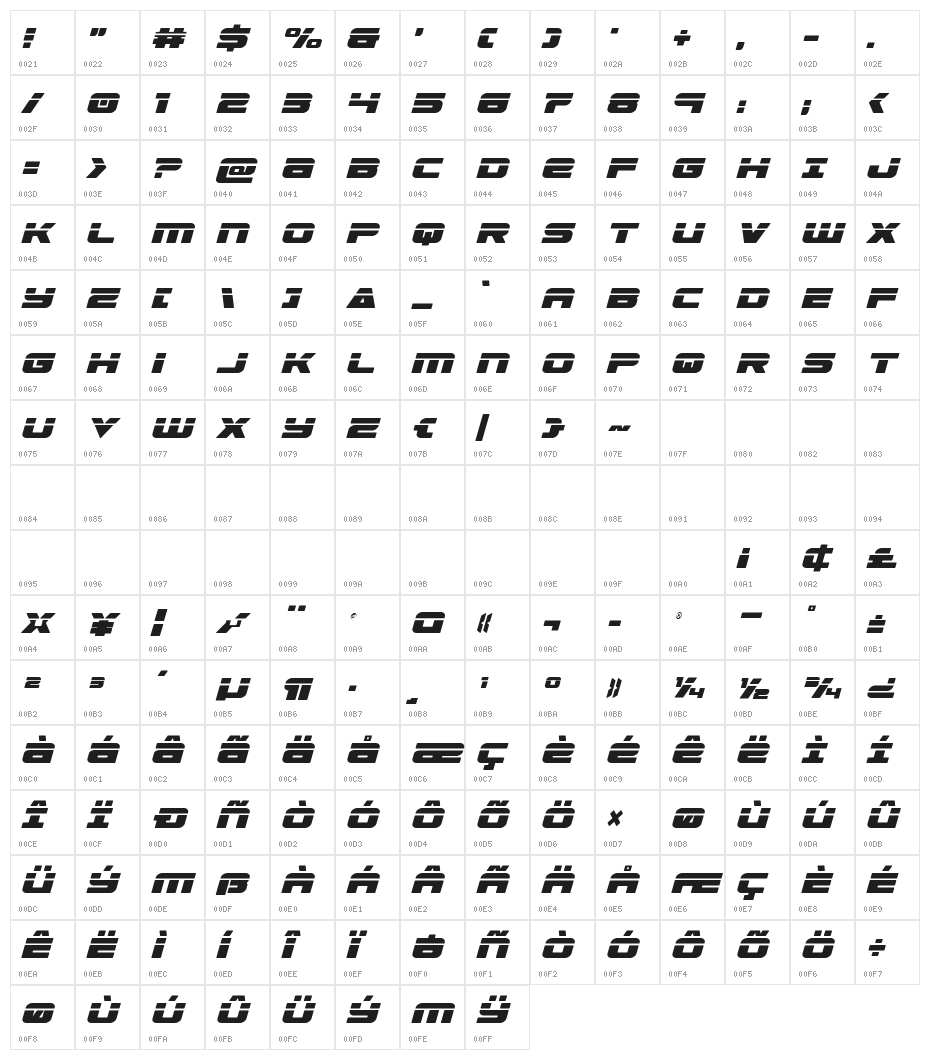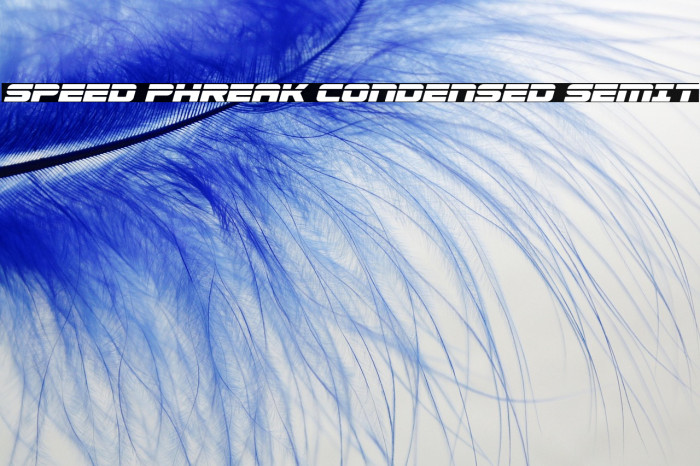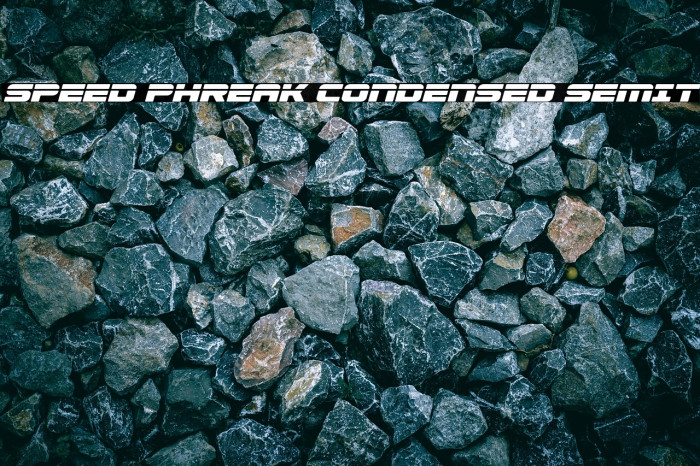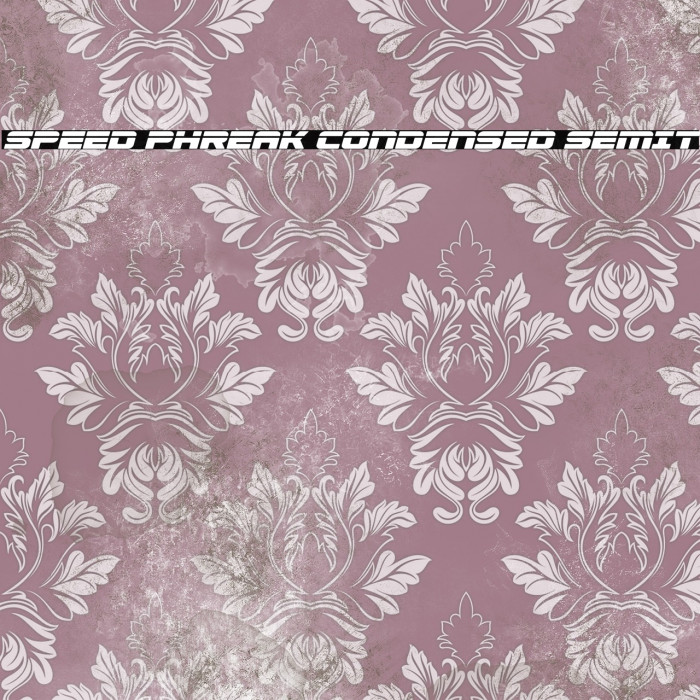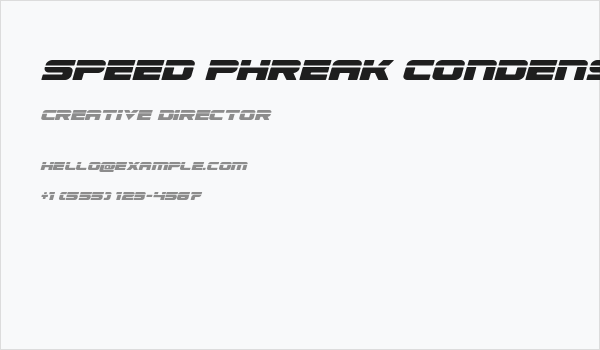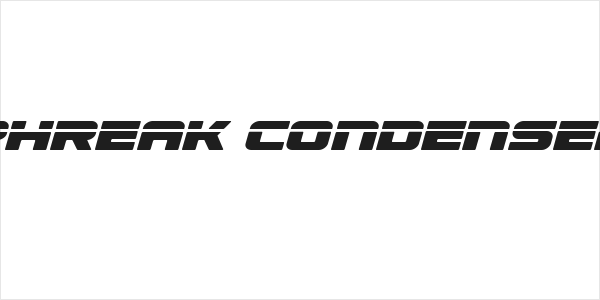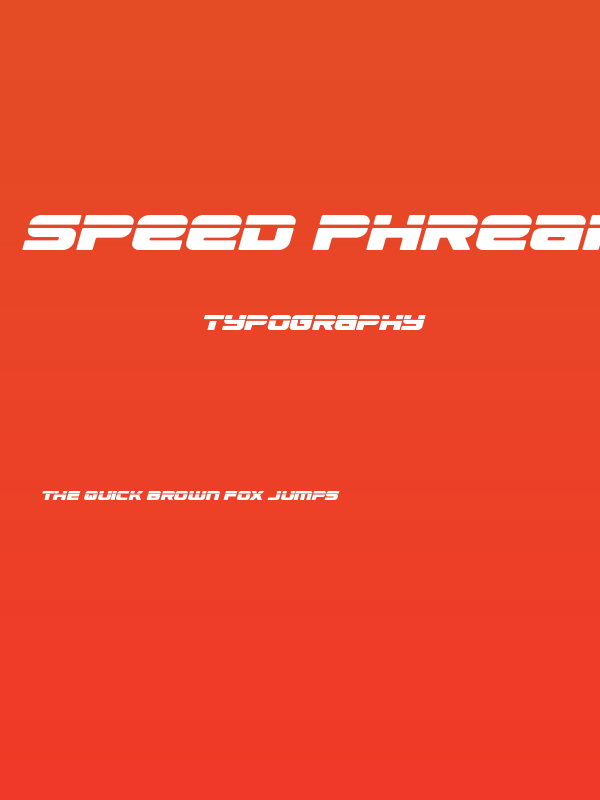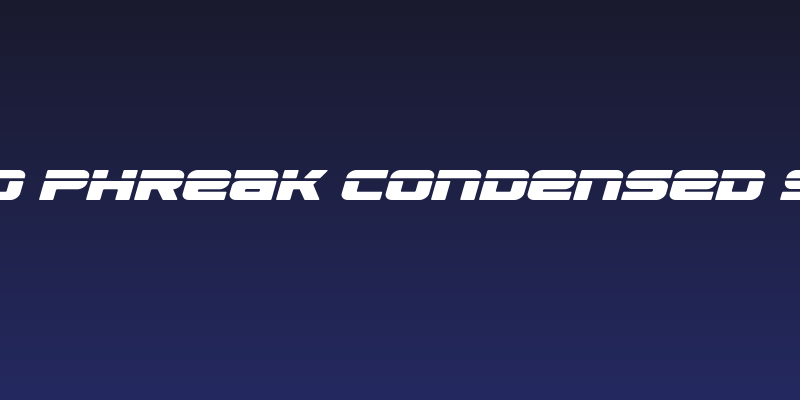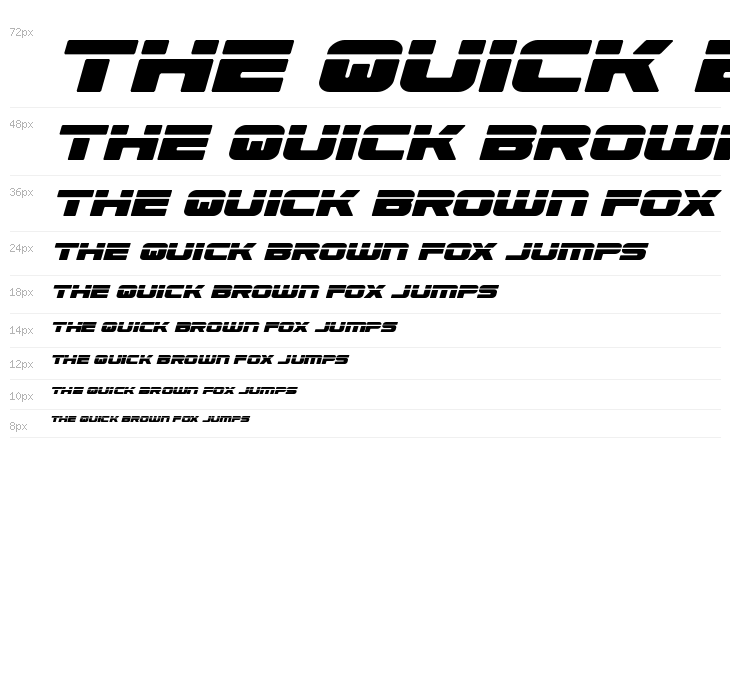
Speed Phreak Condensed SemIt Font
Speed Phreak Condensed SemIt Description
This font features a bold, condensed style with a futuristic and dynamic appearance. The characters are designed with a distinct slant, giving them a sense of motion and speed. The strokes are thick and consistent, providing a strong visual impact. The angular and geometric shapes of the letters contribute to its modern and edgy look. The font maintains uniformity across uppercase, lowercase, numbers, and special characters, ensuring readability while retaining its unique style. Its condensed nature makes it suitable for space-saving designs without compromising on legibility.
| Proposed Projects | Ideal for sports branding, automotive designs, tech-related projects, and dynamic advertising. |